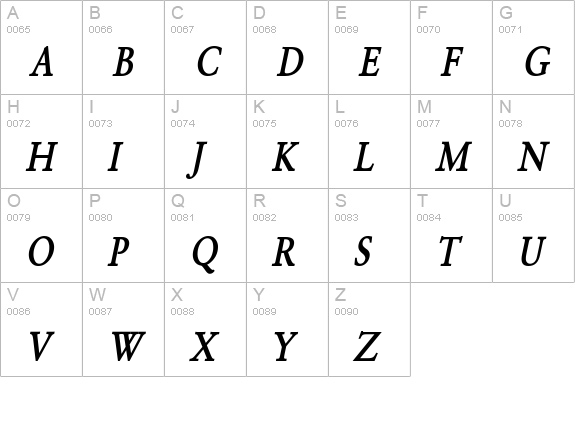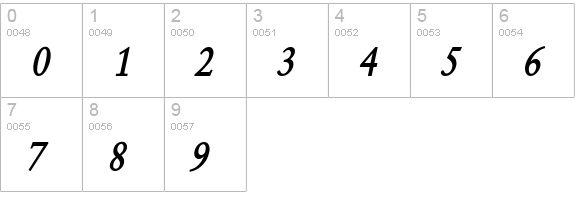
Garrick Condensed Bold Italic is a strong, high-contrast, condensed-width, italic variant in the Garrick typeface family \xE2\x80\x94 well suited to headlines, attention-grabbing titles, and strong calls-to-action.
Garrick Condensed Bold Italic font exudes a sense of modern sophistication with its sleek lines and bold curves. This font is perfect for making a statement on any project, whether it be for a professional presentation or a creative design. The condensed style adds a touch of elegance, while the bold italic typeface commands attention and adds a dynamic flair. And the best part? Garrick Condensed Bold Italic font is freely available to download at FontsMarket.com. You can easily enhance your projects with this eye-catching font without any cost. Don't miss out on the opportunity to elevate your designs with the striking and versatile Garrick Condensed Bold Italic font.